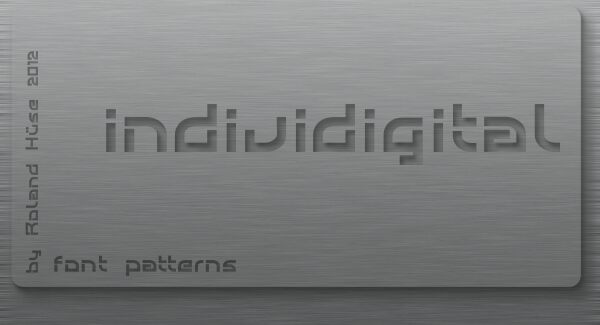
Individigital Subtitle is a free futuristic display font with broad geometric lettering and a sleek machine-made profile. Rounded bends meet abrupt cuts and open joins. Broken crossbars and segmented strokes give familiar letters the logic of a custom electronic interface.
Technology and electronic-music audiences are the clearest match for its sharp, engineered style. It can shape game title cards, club posters, software branding, and science-fiction packaging with an unconventional digital edge. Its interrupted lines can echo circuit diagrams, interface panels, or angular illustration, turning the lettering into part of the surrounding image.
Individigital Subtitle